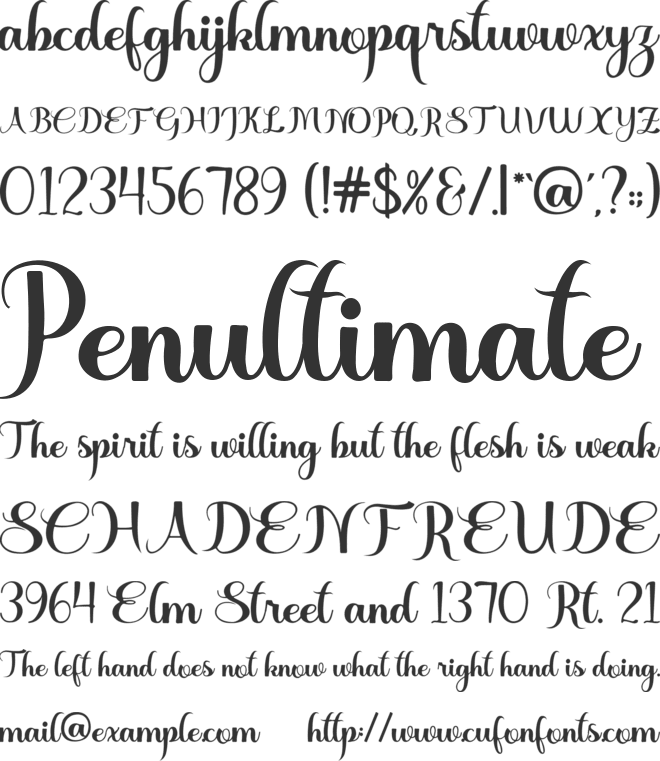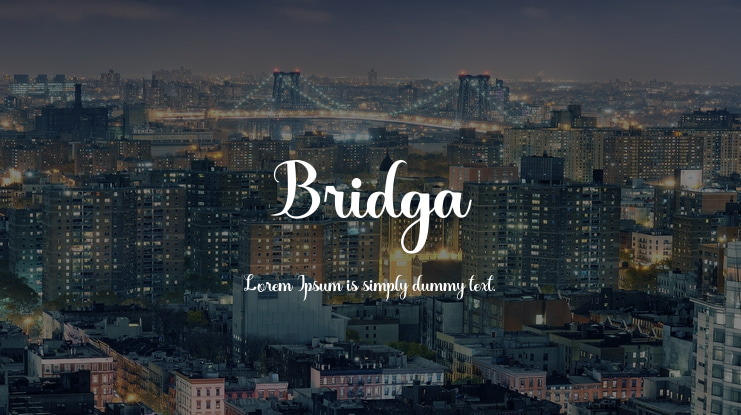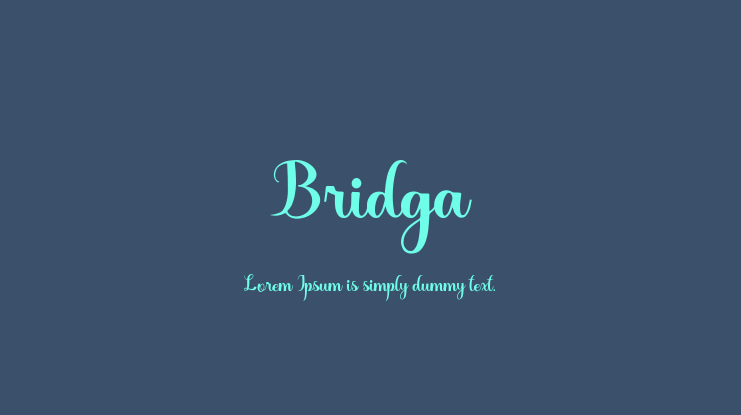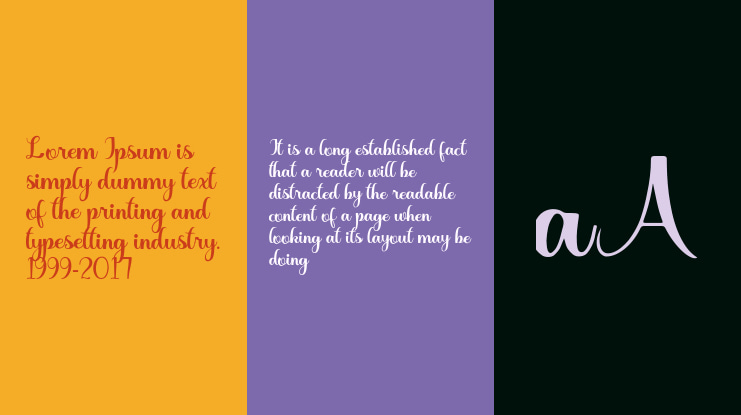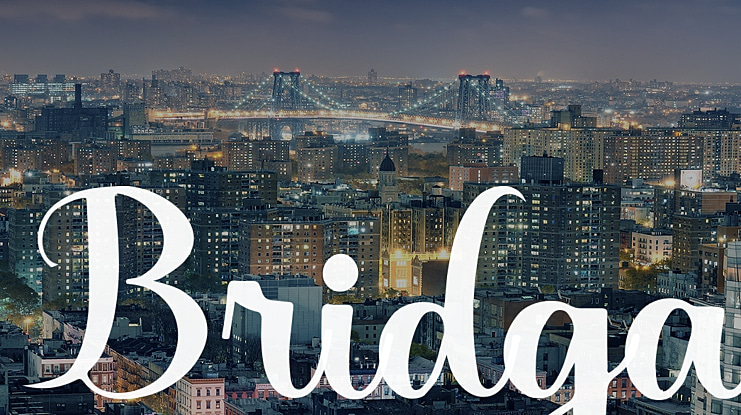
Bridga is a modern script font with a wonderful choice of bold, elegant, and vintage swashes to choose from. This font is PUA encoded which means you can access the available glyphs and swashes with ease!NOTE:By installing or using this font, you are agree to the Product Usage Agreement:- This font is already FULL VERSION and ONLY for PERSONAL USE. NO COMMERCIAL USE ALLOWED!- Here is the link to purchase commercial license: https://www.creativefabrica.com/product/bridga/ref/397078/- Any donation are very appreciated. Please visit our store for more amazing fonts : https://www.creativefabrica.com/designer/rezastudio Thank you.-------------------INDONESIA: Dengan meng-install font ini, anda dianggap mengerti dan menyetujui semua syarat dan ketentuan penggunaan font dibawah ini:- Font demo ini hanya dapat digunakan untuk keperluan "Personal Use"/kebutuhan pribadi, atau untuk keperluan yang sifatnya tidak "komersil", alias tidak menghasilkan profit atau keuntungan dari hasil memanfaatkan/menggunakan font kami. Baik itu untuk individu, Agensi Desain Grafis, Percetakan, Distro atau Perusahaan/Korporasi.- Silakan gunakan lisensi komersial dengan membeli melalui link ini : https://www.creativefabrica.com/product/bridga/ref/397078/- Dengan hanya lisensi "Personal Use", DILARANG KERAS menggunakan atau memanfaatkan font ini untuk kepeluan Komersial, baik itu untuk Iklan, Promosi, TV, Film, Video, Motion Graphics, Youtube, Desain kaos distro atau untuk Kemasan Produk (baik Fisik ataupun Digital) atau Media apapun dengan tujuan menghasilkan profit/keuntungan.- Untuk penggunaan keperluan Perusahaan/Korporasi silakan menggunakan Corporate License.- Menggunakan font ini dengan lisensi "Personal Use" untuk kepentingan Komersial apapun bentuknya TANPA IZIN dari kami, akan dikenakan biaya CORPORATE LICENSE.Terima kasih.